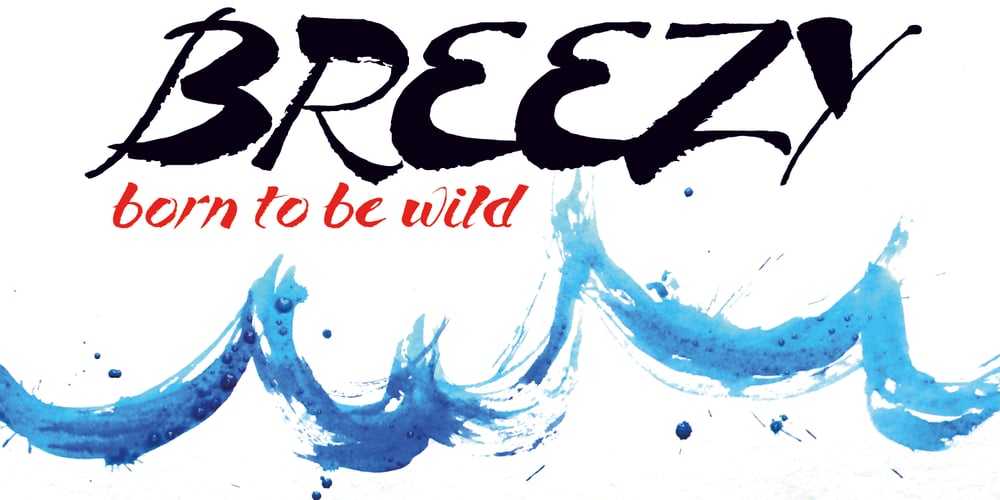
Breezy Font Family was designed by Gert Wiescher and published by Wiescher Design. Breezy contains 1 styles and family package options. »Breezy« is a brush script with very expressive strokes and surprising connections. »Breezy« is a great script if you really want to have that crude, rough feeling.